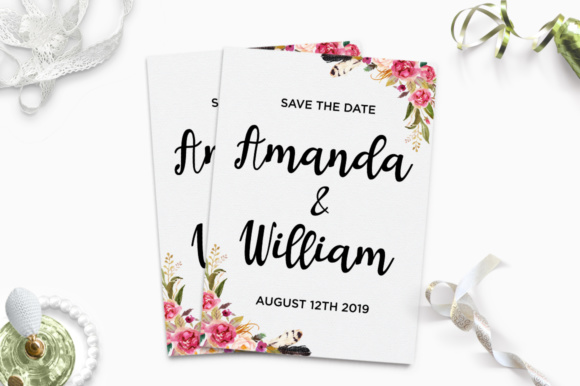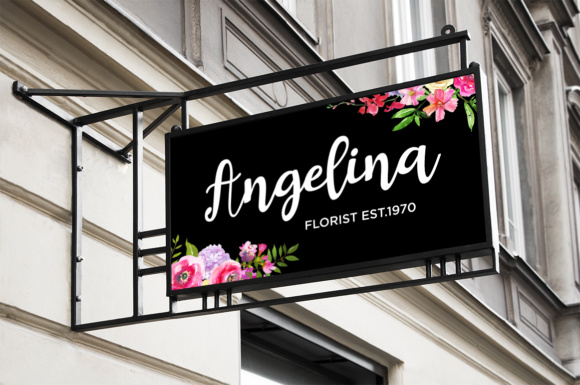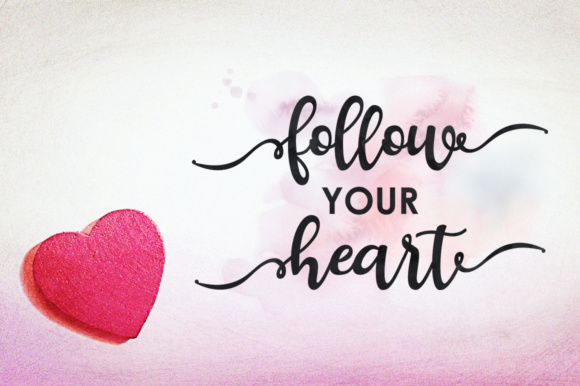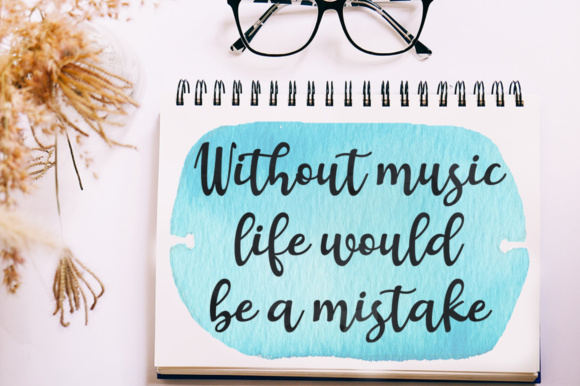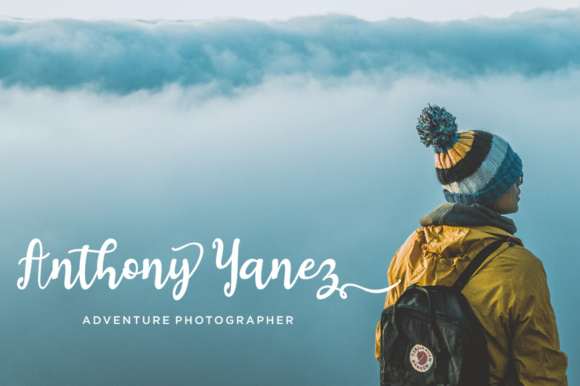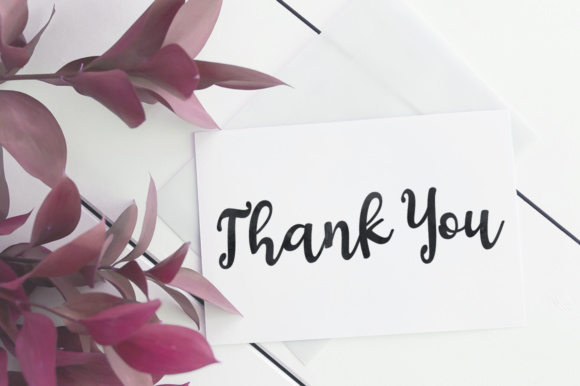
Introducing Dealova Script Font: Elevate Your Design with a Touch of Vintage Elegance
Are you on the hunt for a font that can add a dash of sophistication and a pinch of nostalgia to your design projects? Look no further than the Dealova Script Font. This beautiful, legible script font is making waves in the design community for its unique blend of vintage charm and clean, modern lines. Whether you’re working on a branding project, crafting a logo, or simply looking to elevate your digital content, Dealova script is an excellent choice.
The Characteristics of Dealova Script Font
Dealova script stands out for its elegant and fluid strokes, reminiscent of traditional calligraphy. However, what sets it apart is its legibility and versatility. Unlike some script fonts that can become illegible when scaled down or used in certain contexts, Dealova maintains its clarity and beauty across various applications. This makes it an incredibly practical choice for designers who need a font that can perform well across different mediums.
Vintage Aesthetic with a Modern Twist
The Dealova script font embodies a vintage aesthetic, evoking memories of classic signboards, elegant wedding invitations, and timeless brand logos. Yet, it does so with a clean and modern approach that ensures it doesn’t feel out of place in contemporary designs. This blend of old and new is precisely what makes Dealova so appealing to designers looking to add depth and character to their work without sacrificing legibility or professionalism.
Uses of Dealova Script Font
The versatility of Dealova script font is one of its most compelling features. Here are just a few ways you can use this beautiful font in your projects:
- Branding and Logos: Add a touch of elegance and sophistication to your brand identity with a custom logo designed using Dealova script.
- Wedding and Event Invitations: Create stunning invitations that set the tone for your special day with a font that exudes romance and class.
- Packaging Design: Elevate your product packaging with a font that combines style and readability, perfect for labels, tags, and more.
- Digital Content: From blog headers to social media graphics, Dealova script can add a professional and stylish flair to your online content.
Why Choose Dealova Script Font?
There are countless script fonts available, but Dealova stands out for several reasons:
- Legibility: Its clear and flowing design ensures that your message is conveyed effectively, regardless of the context.
- Versatility: Dealova script can be used in both digital and print projects, making it a valuable addition to any designer’s toolkit.
- Elegance: It brings a level of sophistication and elegance that can elevate any design project.
In conclusion, the Dealova script font is a powerful tool for designers and crafters looking to infuse their projects with a touch of vintage elegance and modern cleanliness. Its legibility, versatility, and aesthetic appeal make it an excellent choice for a wide range of applications. Whether you’re creating a brand identity, designing invitations, or simply looking to enhance your digital content, Dealova script is sure to impress. So why settle for ordinary when you can add a dash of sophistication with Dealova script font?